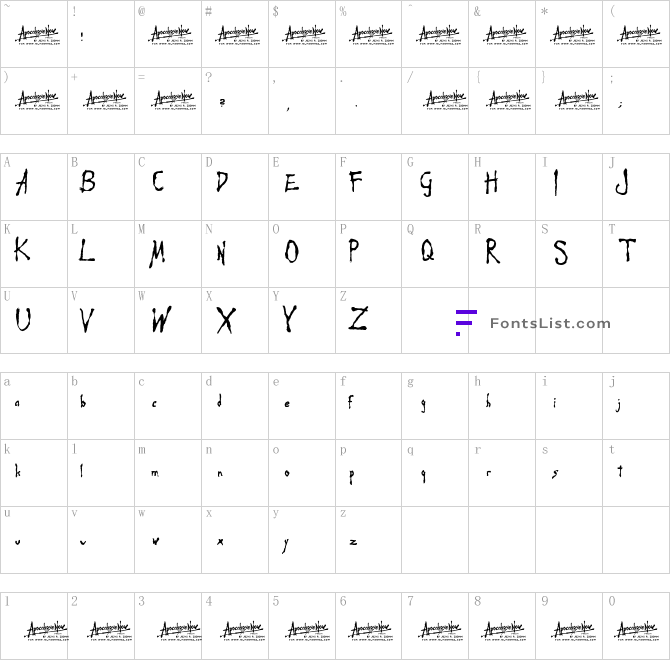
- Font Name:Apocalypse Now
Apocalypse-Now.ttf is a very beautiful artistic font, Apocalypse-Now.ttf is widely used in the design and printing of various books and pictures,Apocalypse-Now.ttf has a strong visual impact,Apocalypse-Now.ttf is a commonly used font in newspapers, magazines and books, and is used in posters, e-commerce Poster design, store design, logo design, font design and other fields.Apocalypse-Now.